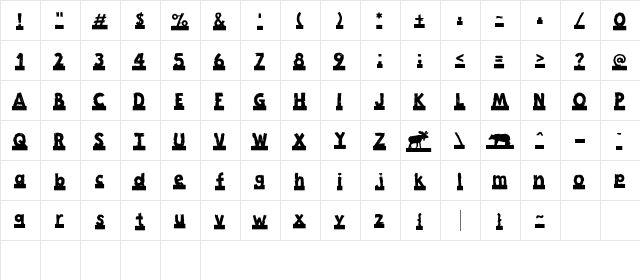
LD Moose Lodge Regular Font Preview
LD Moose Lodge Regular
LD Moose Lodge Regular Font Details
Design Context for LD Moose Lodge Typeface
LD Moose Lodge is a composed and adaptable typeface that performs quietly and consistently across a wide range of design contexts.